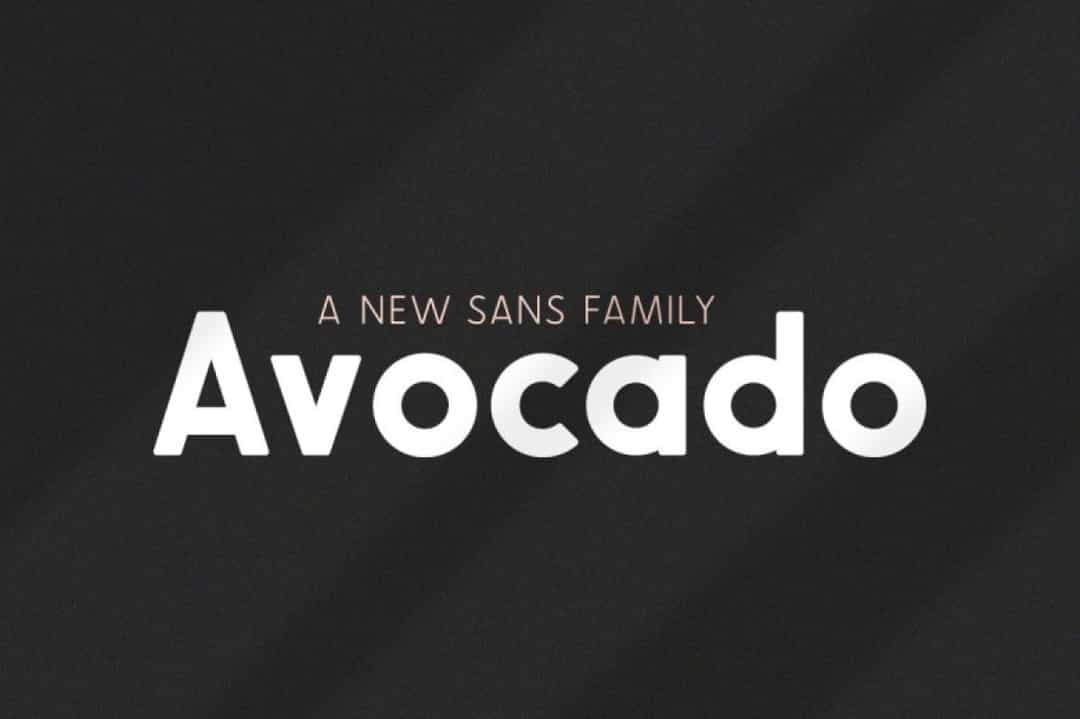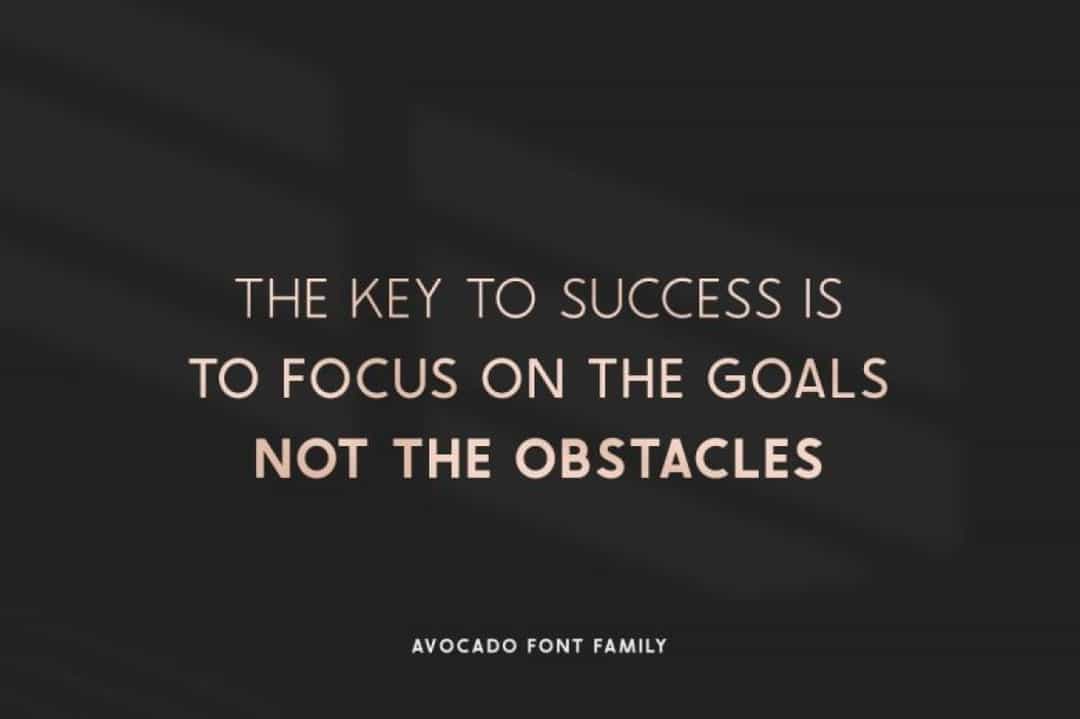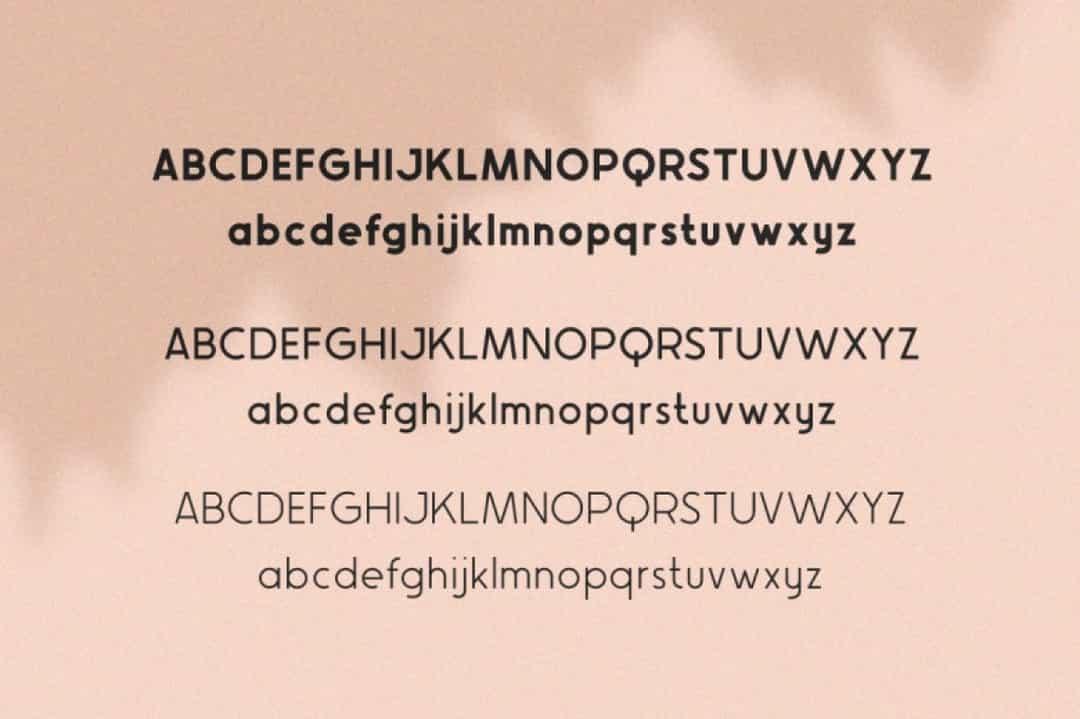
Avocado Sans Font Family is an exciting new font featuring three impressive weights – thin, regular and thick! All three work harmoniously together and pair nicely with serifs and scripts for incredible results! Download now to experience them for yourself!